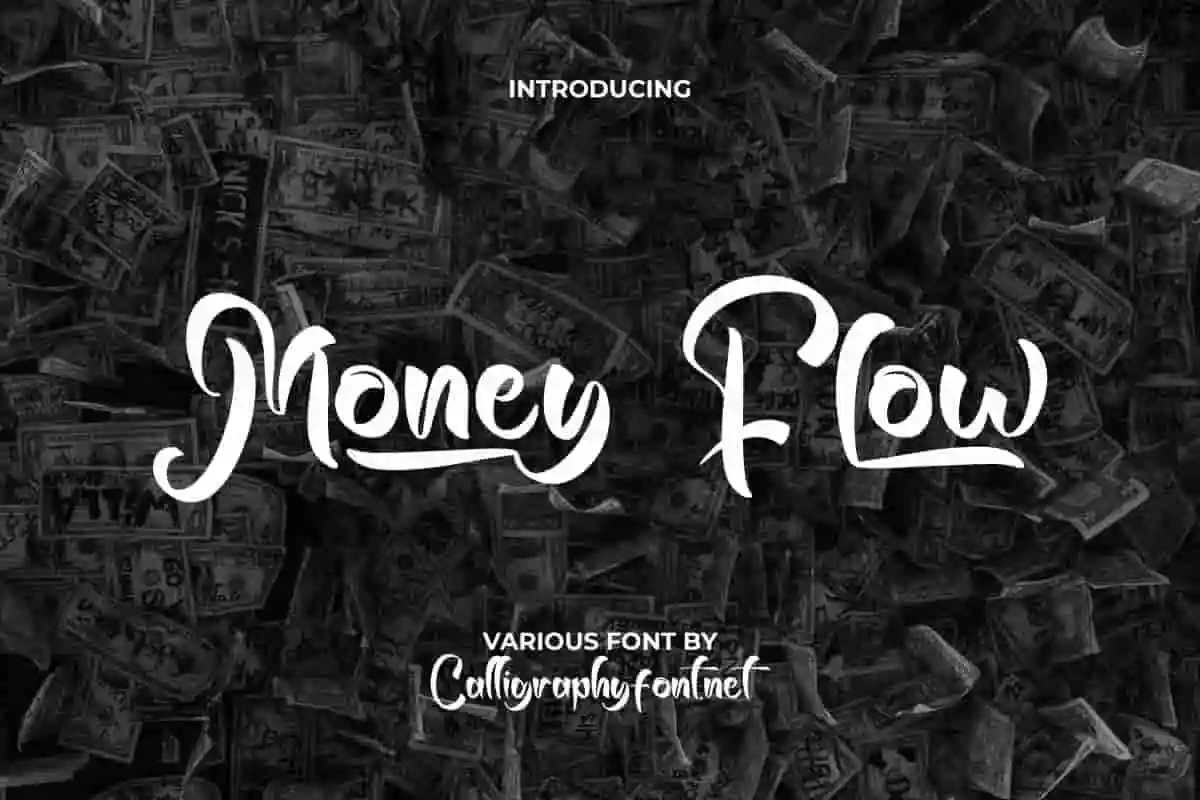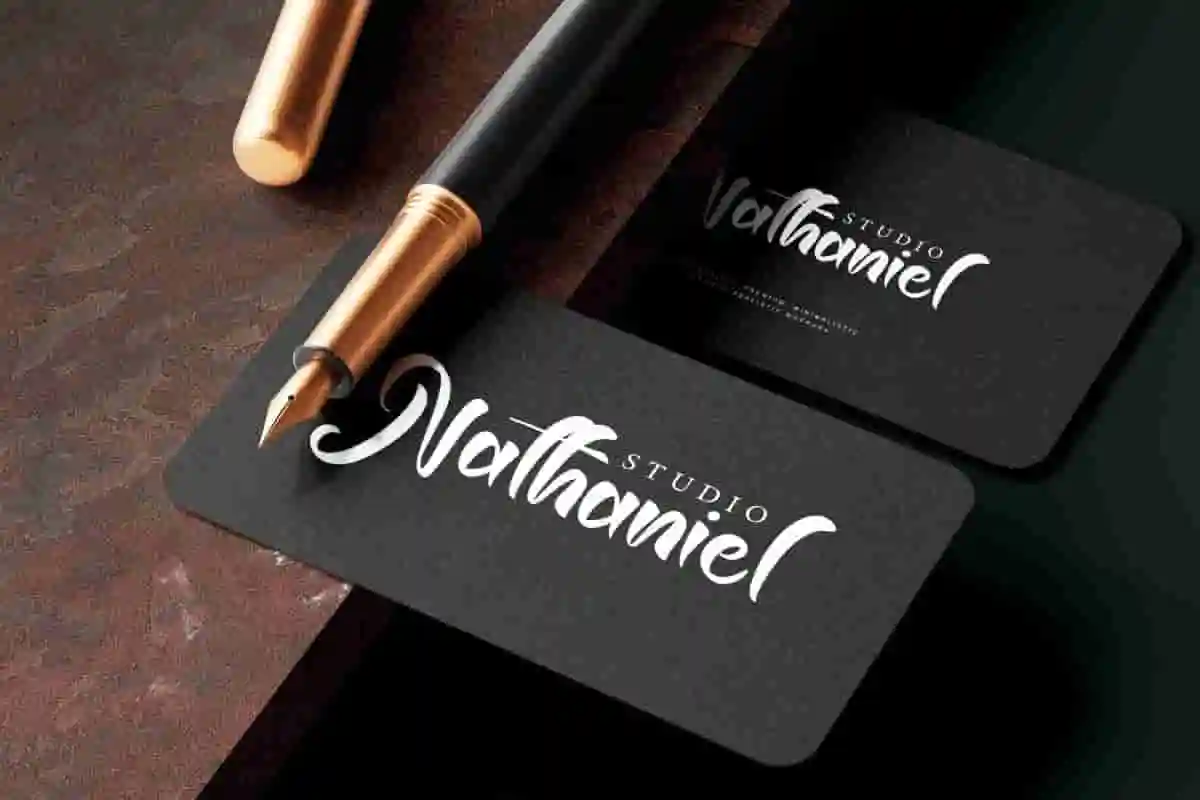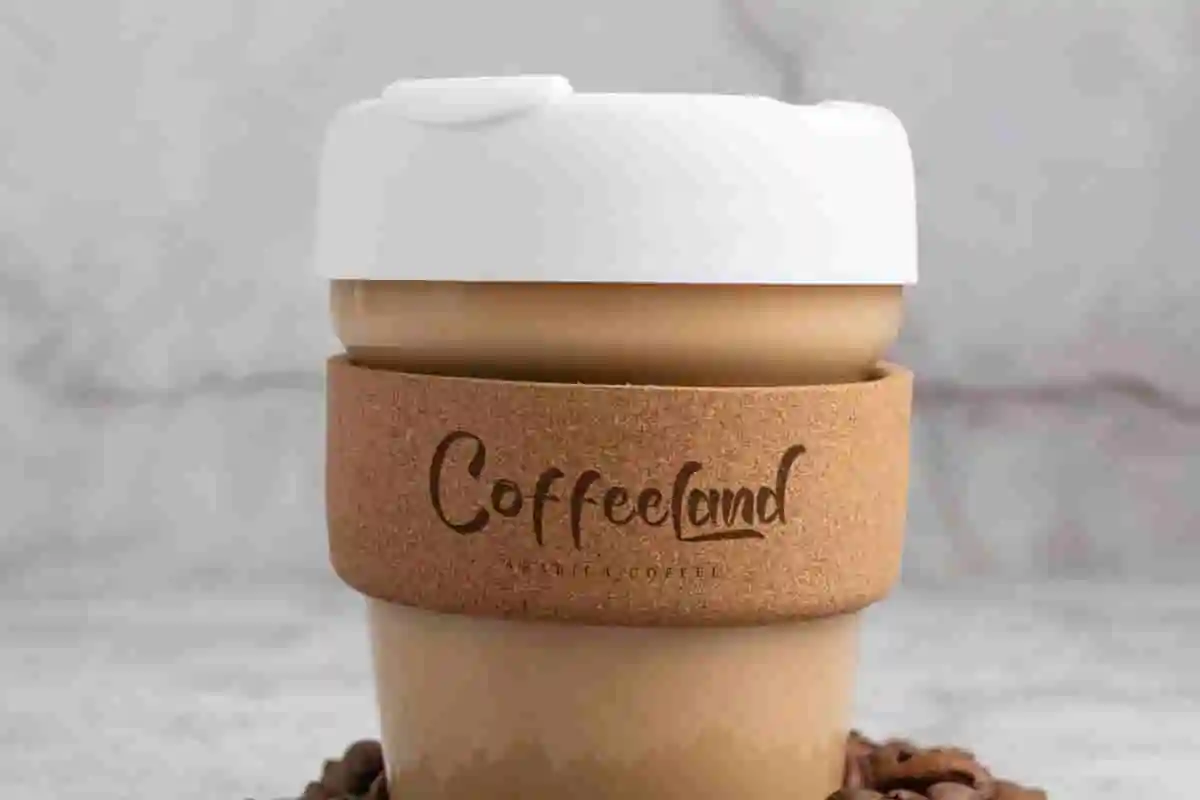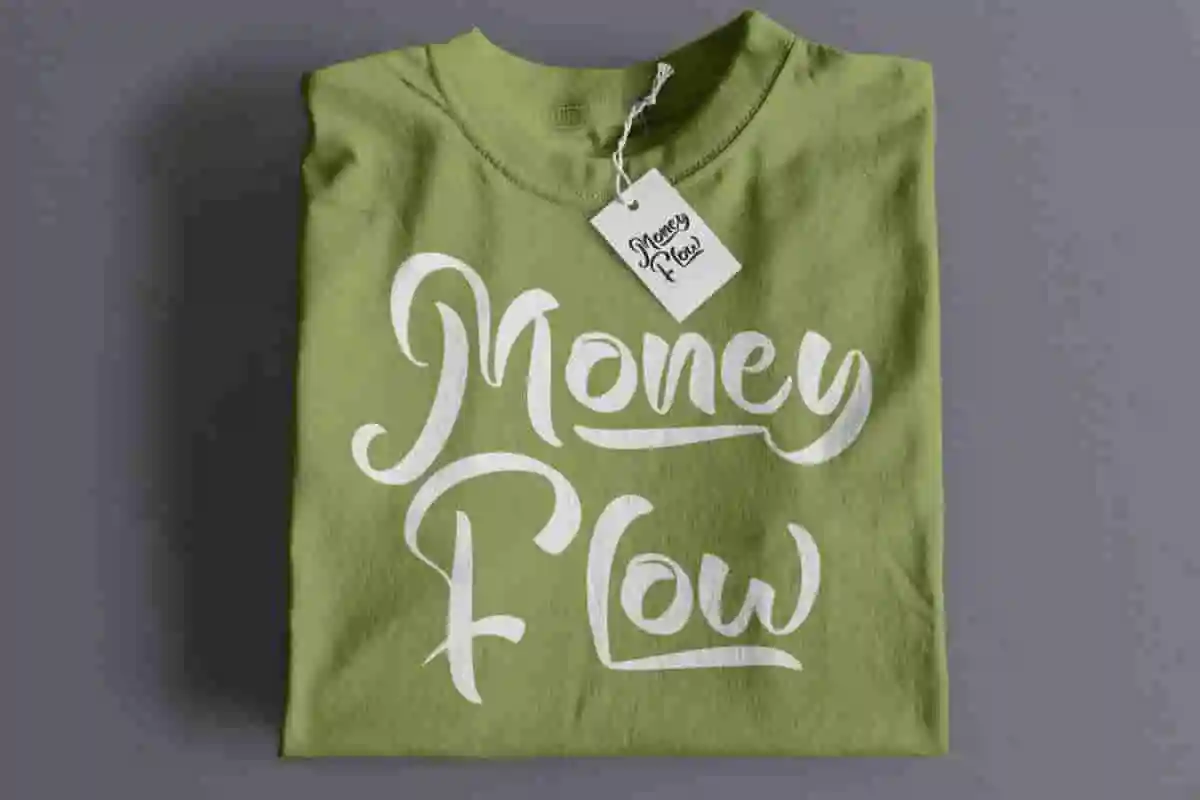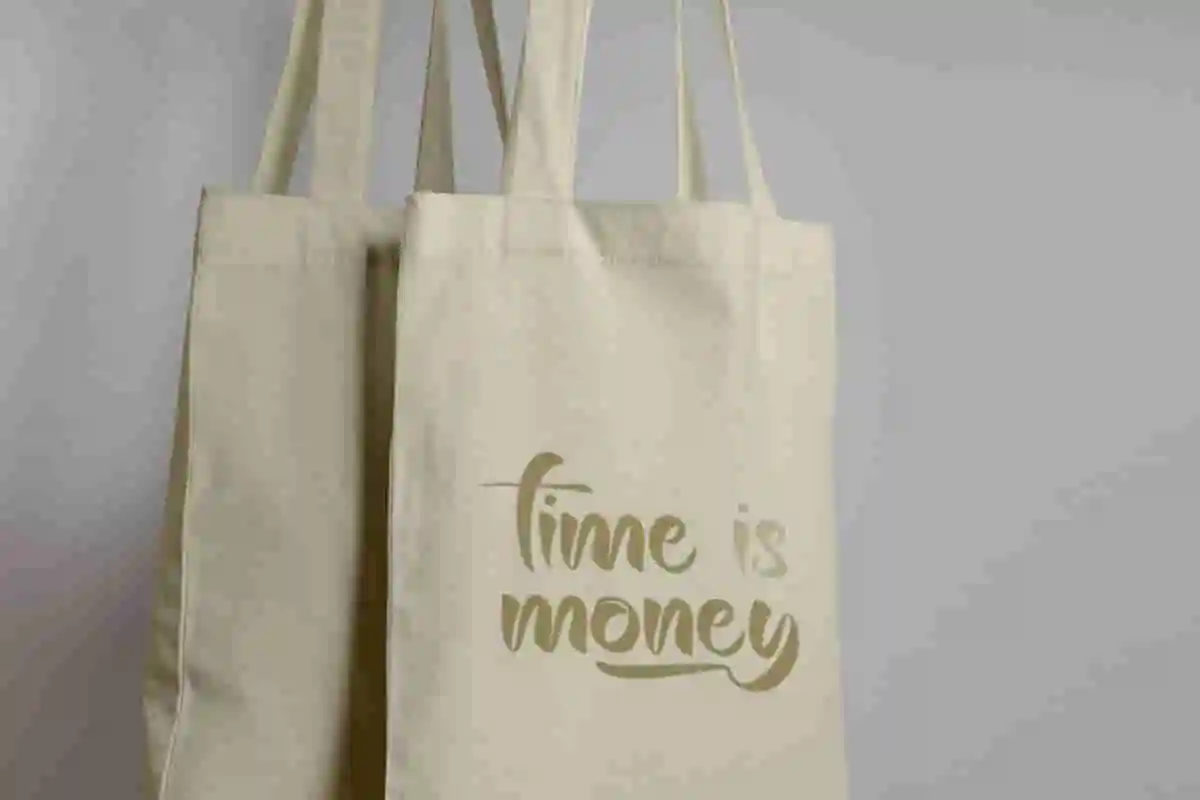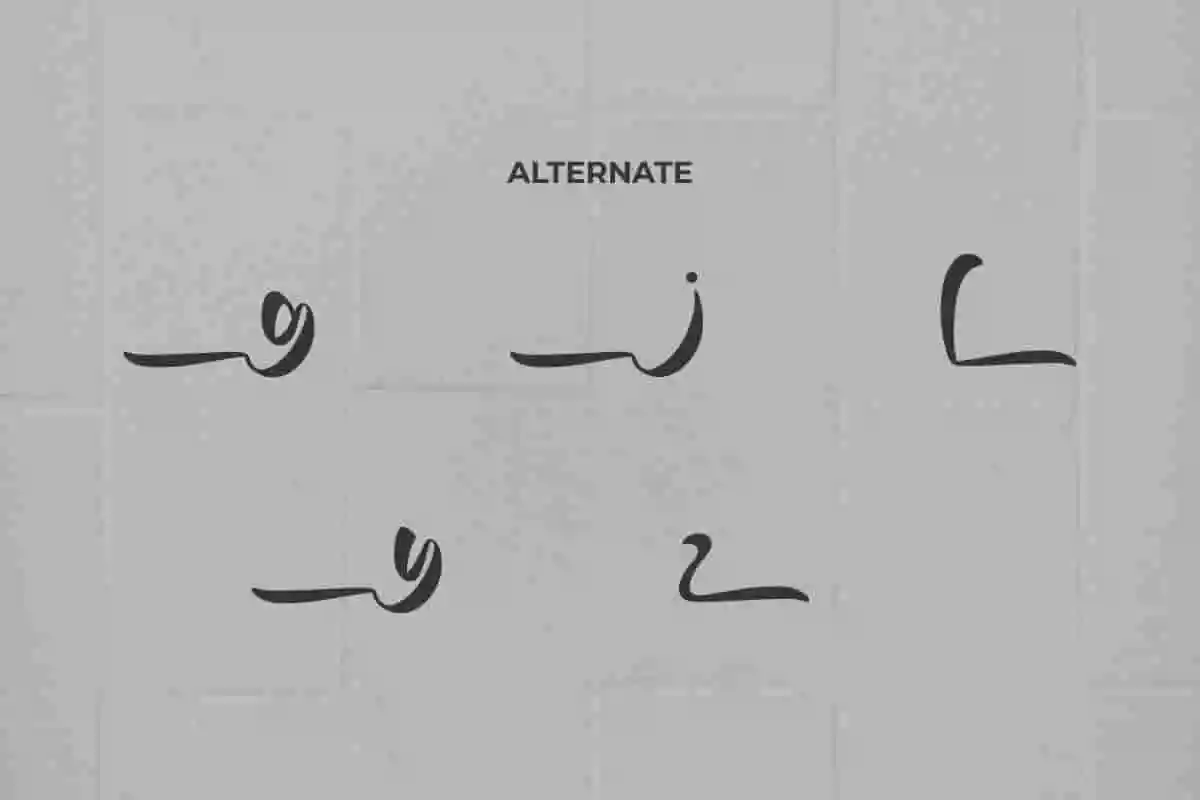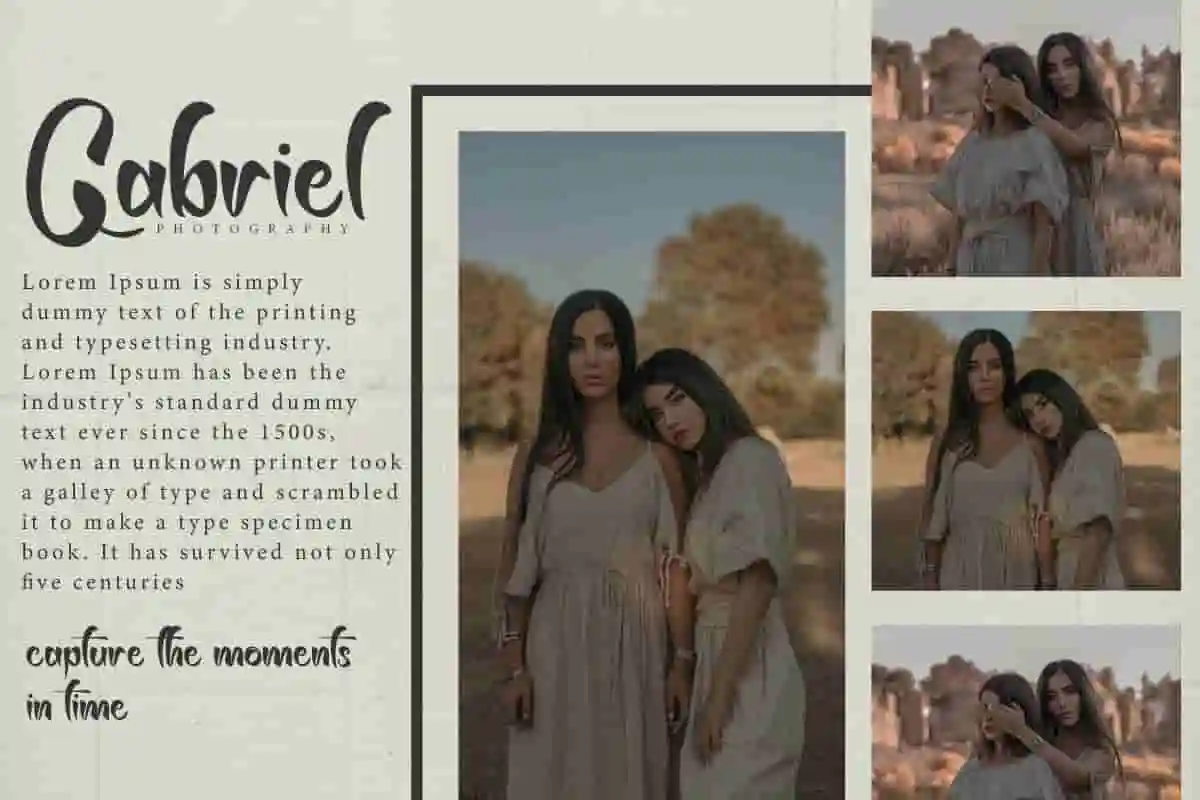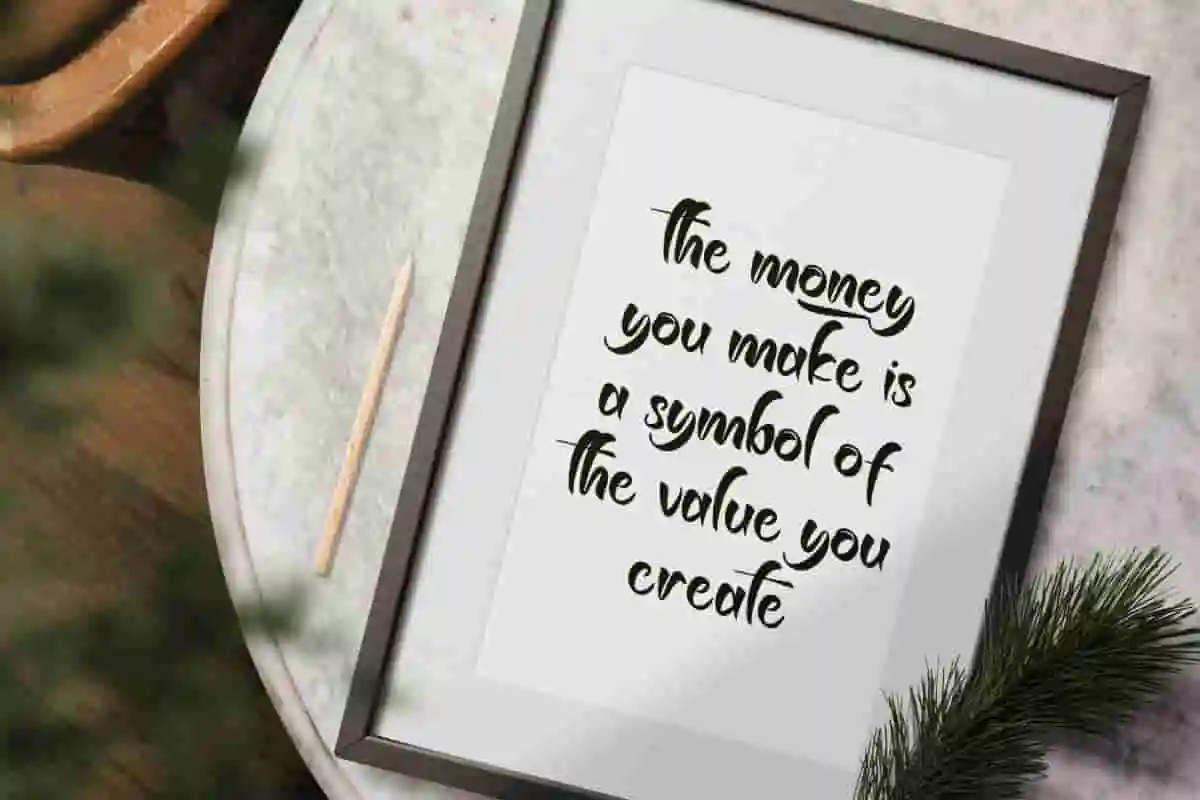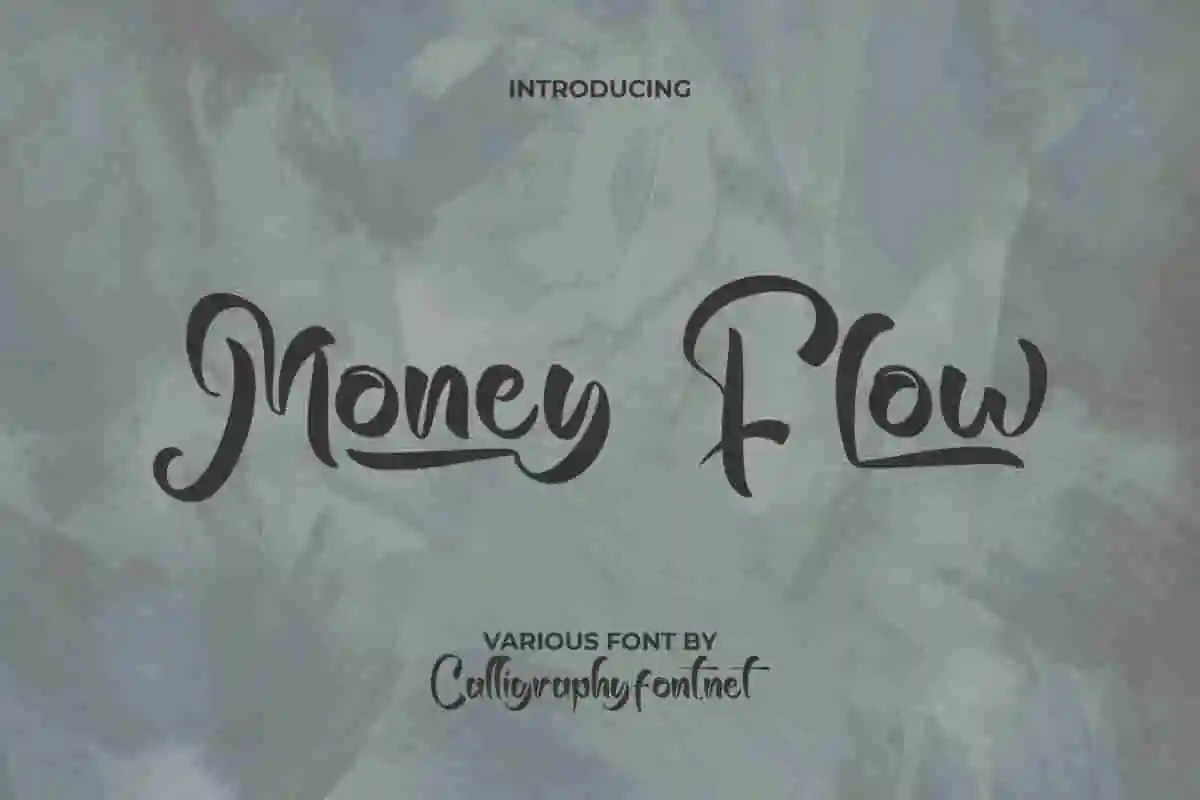
Money Flow Display Font
Money Flow Font is a playful brush display font that would be great for café, clothing brand, label, photography studio, quote, and anything else that requires a stylish look.
Money Flow Font is a playful brush display font, created by CalligraphyFonts. This is one of many types writing that carries a vintage vibe to your designs that will be perfect for any creative project, such as billboard, brand logo, business card, flyer, header, label, packaging design, poster, quotes, screen print, stationery, and much more.
Looking for a typeface that brings strength, confidence, and bold creativity to your design projects? Introducing Money Flow Display Font, a modern display font crafted to give your work a striking and professional edge. Perfect for designers, marketers, and creatives, this font is designed to capture attention and communicate power in every letter.
Money Flow Display Font is more than just a typeface – it’s a tool to enhance your brand identity. With its sharp lines, bold structure, and contemporary aesthetic, it is the perfect choice for logos, posters, banners, headlines, advertising materials, social media graphics, and product packaging. Whether you’re building a luxury brand, launching a startup, or creating an eye-catching campaign, this display font ensures your message stands out with authority.
One of the greatest advantages of Money Flow Display Font is its versatility. Its stylish design adapts seamlessly across digital and print platforms, making it a reliable choice for professionals who want consistency and impact. With clean readability and strong character, your projects will instantly feel modern, fresh, and powerful.
Imagine your logo with a font that radiates energy and determination, or a headline that instantly grabs attention. That’s exactly what Money Flow Display Font delivers. Its dynamic personality makes it ideal for industries like fashion, finance, sports, technology, and entertainment.
Money Flow Display Font has an uneven thickness with a curved line drawn at each corner of the letter, this makes it unique and stands out and will be able to present perfection in form and legibility. It will be great for any industry, including : accessories, advertisement, author, café, fashion brand, furniture, handicraft, interior design, photography, printing, publishing, restaurant, etc.
Money Flow Display Font comes with a full set of Uppercase and Lowercase Basic Characters, Number, a large range of Punctuation and Symbol. Also equipped with some Alternate characters that will decorate this font along with multilingual character support. Ready to use both on Windows machine or Mac with simple installations. It’s tested to work well in the Adobe Apps (Illustrator, Adobe InDesign, Adobe Photoshop) CorelDraw, and others. PUA Encode Characters means you can access all the characters easily – Fully accessible without additional design software.